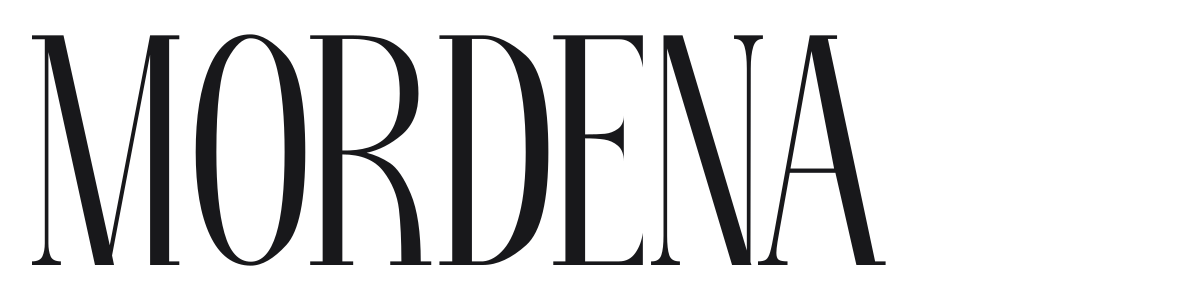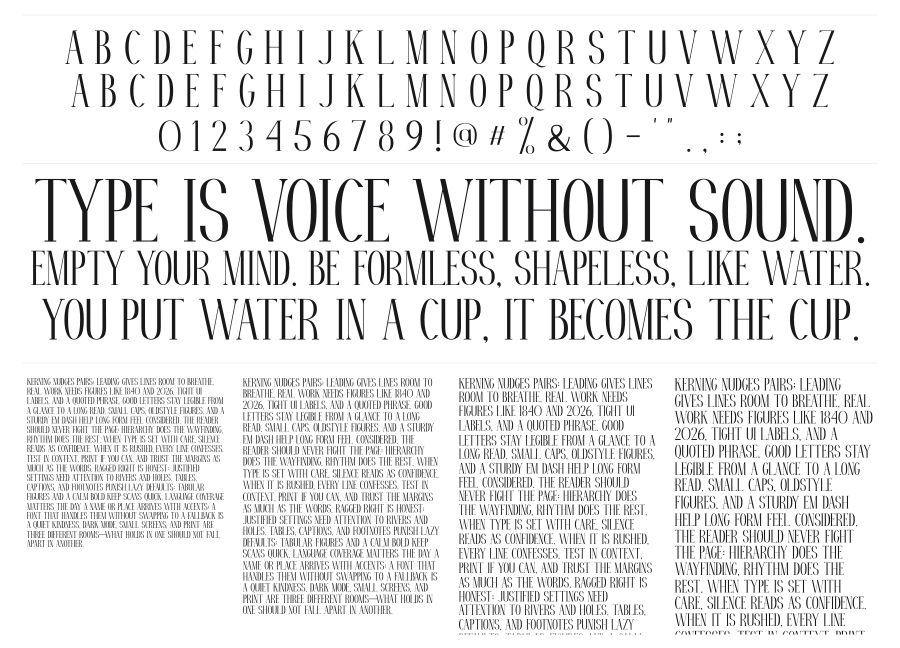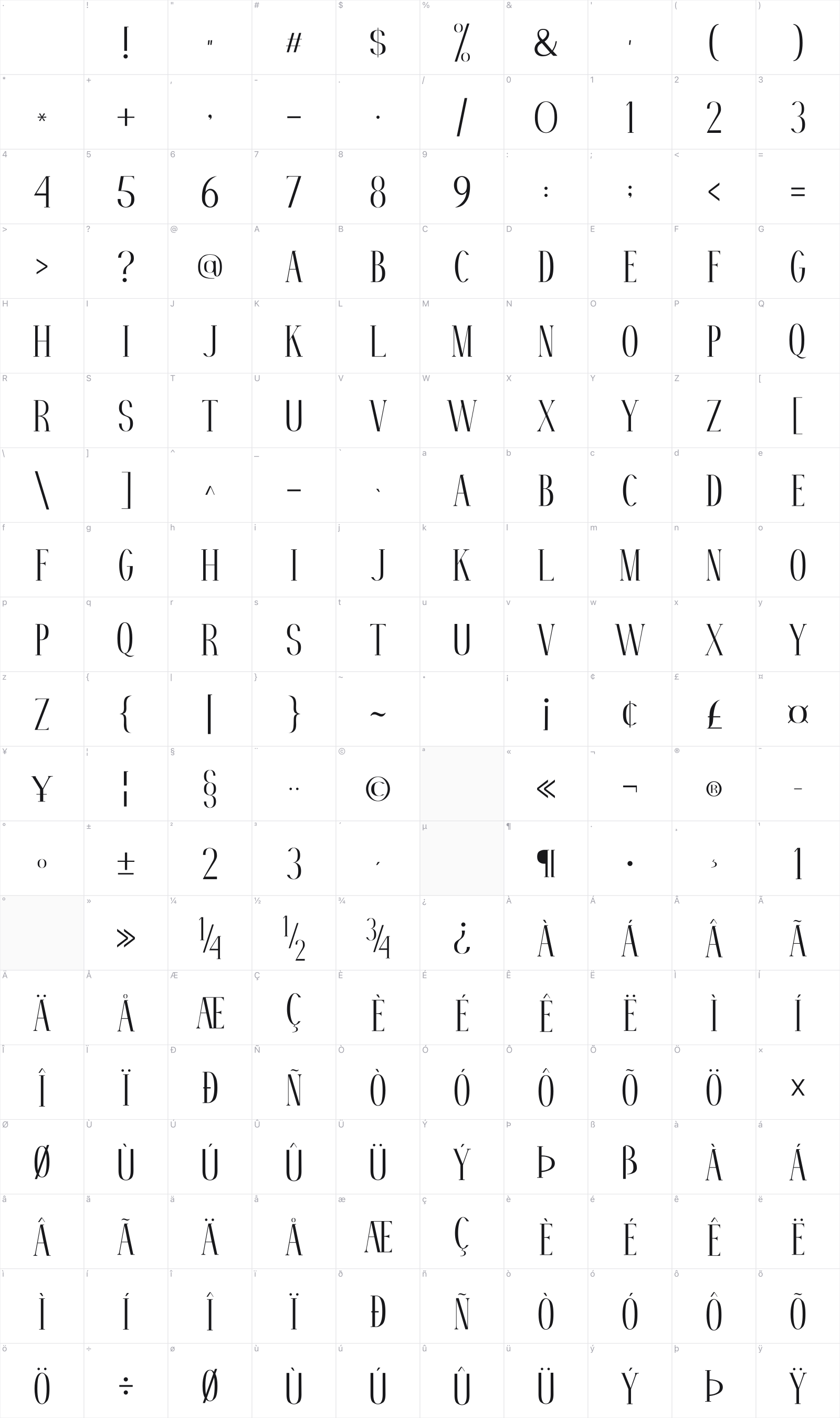
Mordena
Mordena is a condensed Didone serif built on the extreme stroke contrast that defines high-fashion typography. The hairline horizontals and flat unbracketed serifs are pushed to their structural limit against heavy vertical stems. It sits comfortably alongside the mastheads of luxury magazines and premium brand identities.